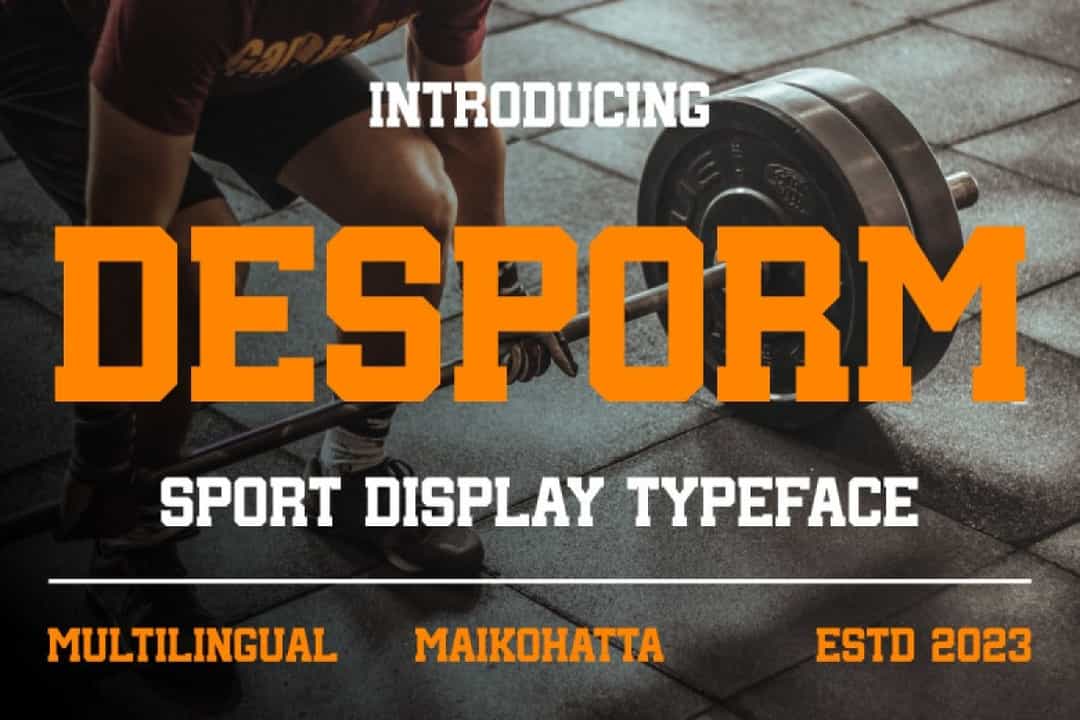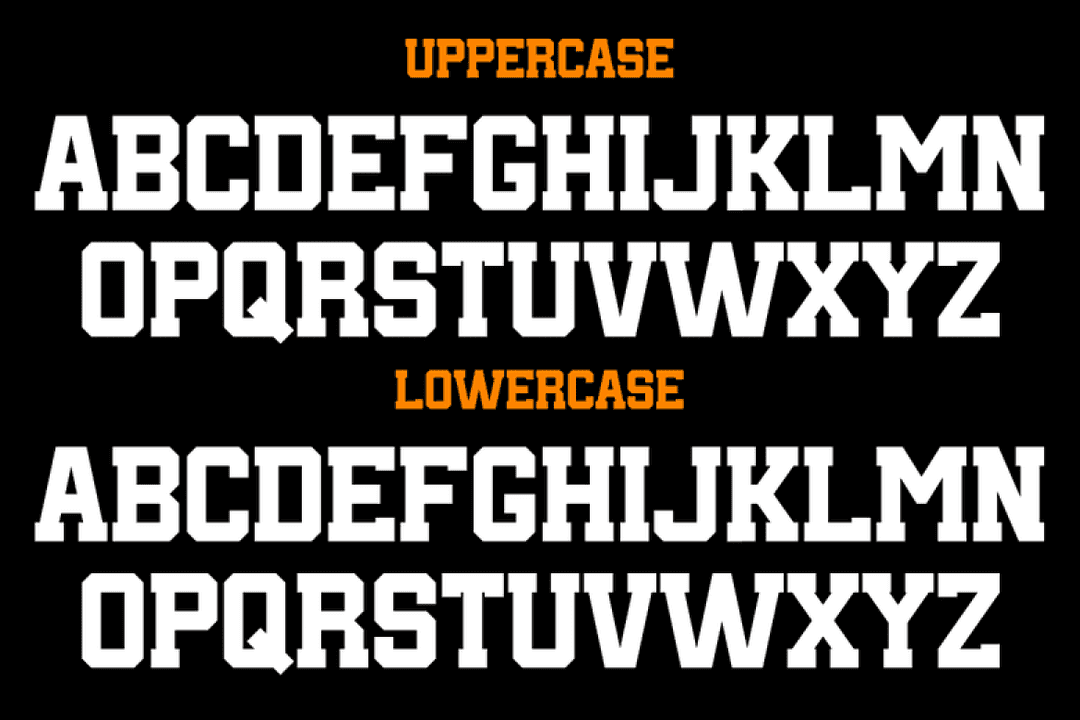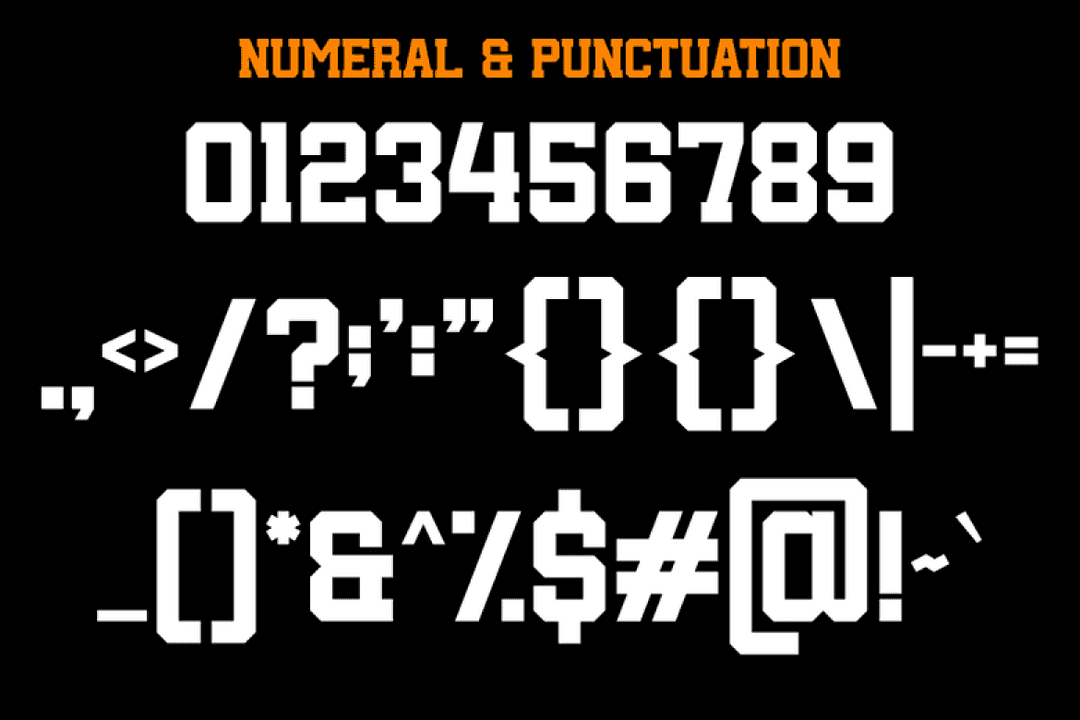
Desporm Display Font This font was designed to represent the energy, enthusiasm, and endurance associated with physical activity and sports. The font can be used for branding identities of sports teams and organizations as well as special sporting occasions.